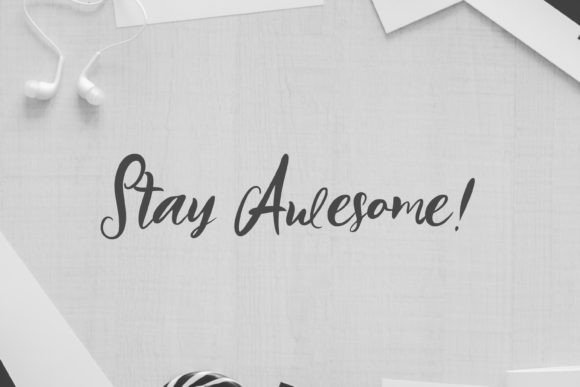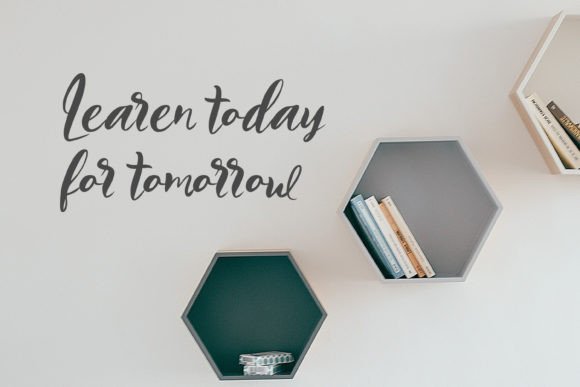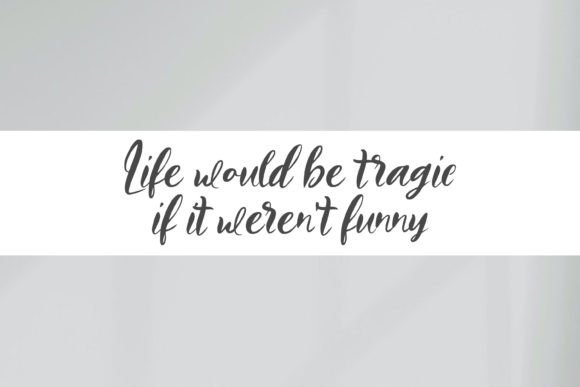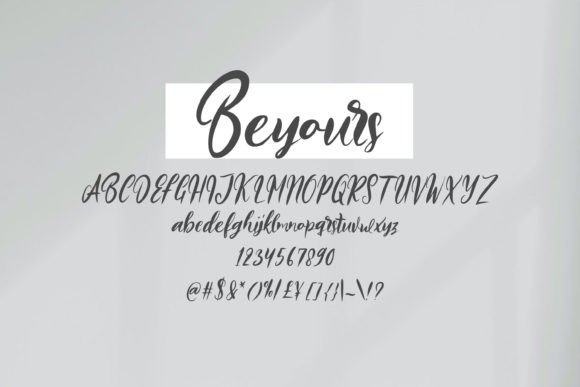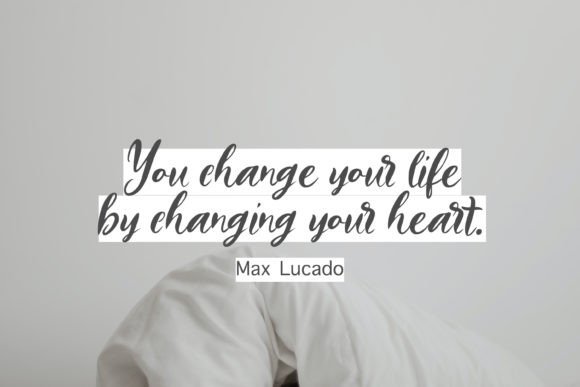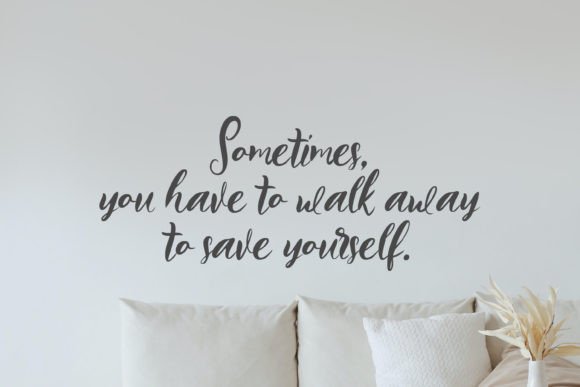
Beyours Font: Elevate Your Designs with a Lovely and Timeless Handwritten Style
Are you a designer or crafter looking for a font that can add a personal touch to your creations? Look no further than Beyours Font, a beautiful and timeless handwritten font that is perfect for creating eye-catching logos, branding, and quotes. With its unique and beautiful touch, Beyours Font is sure to make your design come alive!
The Beauty of Beyours Font
Beyours Font is a lovely and elegant handwritten font that is designed to add a touch of sophistication and style to your designs. Every letter has a unique and beautiful touch, which sets it apart from other fonts. The font is carefully crafted to provide a natural and effortless look, making it perfect for a wide range of design projects.
Beyours Font is the perfect choice for creating eye-catching logos, branding, and quotes. Its elegant and sophisticated design makes it ideal for businesses and individuals looking to create a professional and stylish image. Whether you’re designing a logo, creating a brand identity, or crafting a quote, Beyours Font is sure to make your design stand out.
What Makes Beyours Font Special?
So, what makes Beyours Font so special? Here are just a few reasons why designers and crafters love this font:
- Unique and Beautiful Touch: Every letter in Beyours Font has a unique and beautiful touch, which sets it apart from other fonts.
- Timeless Design: Beyours Font has a timeless design that will never go out of style.
- Elegant and Sophisticated: Beyours Font is elegant and sophisticated, making it perfect for professional designs.
- Natural and Effortless Look: Beyours Font has a natural and effortless look that makes it perfect for a wide range of design projects.
How to Use Beyours Font
Beyours Font is easy to use and can be incorporated into a wide range of design projects. Here are just a few ways you can use Beyours Font:
- Logos and Branding: Use Beyours Font to create eye-catching logos and branding materials.
- Quotes and Posters: Use Beyours Font to create beautiful quotes and posters.
- Social Media Graphics: Use Beyours Font to create social media graphics that stand out.
- Stationery and Packaging: Use Beyours Font to create beautiful stationery and packaging.
Tips for Using Beyours Font
Here are just a few tips for using Beyours Font:
- Use it Sparingly: Beyours Font is a beautiful font, but it can be overwhelming if used too much. Use it sparingly to create a focal point in your design.
- Experiment with Colors: Beyours Font looks great in a variety of colors. Experiment with different colors to find the one that works best for your design.
- Pair it with Other Fonts: Beyours Font can be paired with other fonts to create a unique and interesting design.
Beyours Font is a beautiful and timeless handwritten font that is perfect for designers and crafters looking to add a personal touch to their creations. With its unique and beautiful touch, Beyours Font is sure to make your design come alive! Whether you’re creating a logo, branding materials, or quotes, Beyours Font is the perfect choice.